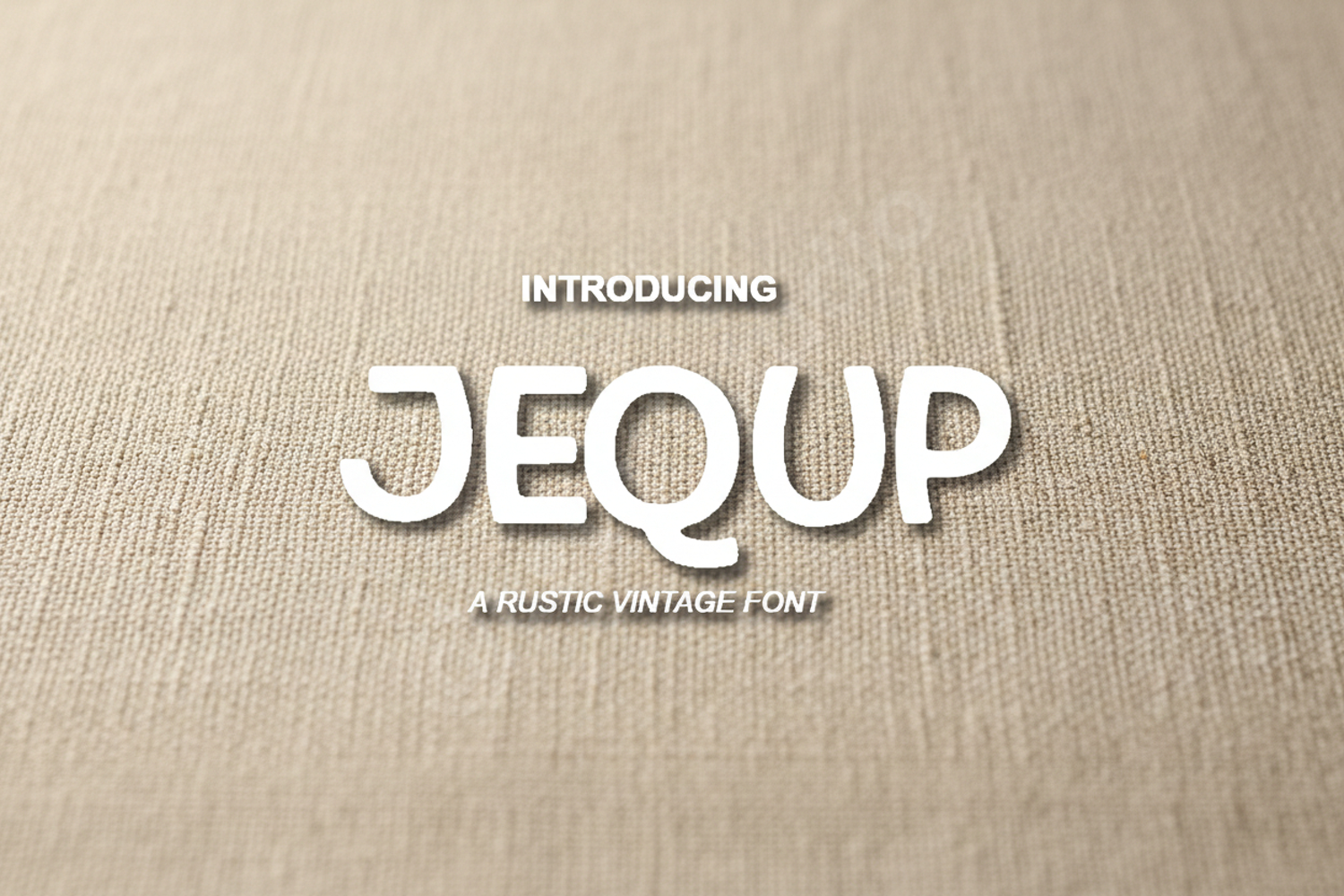
Jequ - Modern Minimalist Display Typeface
Jequ
Elevate your creative projects with Jequ, a premium display font designed to bridge the gap between modern minimalism and sophisticated flair. Crafted with precision, Jequ offers a clean and impactful aesthetic that commands attention while maintaining a high-end, professional feel. Whether you are developing a luxury brand identity or a sleek editorial layout, this font provides the versatility and quality required for top-tier design work.
- Branding and Identity: Perfect for creating memorable logos and cohesive corporate brand systems.
- Editorial Design: Ideal for magazine headlines, striking book covers, and high-impact layouts.
- Social Media: Create stunning graphics and promotional content that stands out in any digital feed.
- Packaging: Add a touch of elegance to product labels and luxury retail packaging.
- Advertising: Use for bold statements in both digital banners and high-quality print marketing materials.